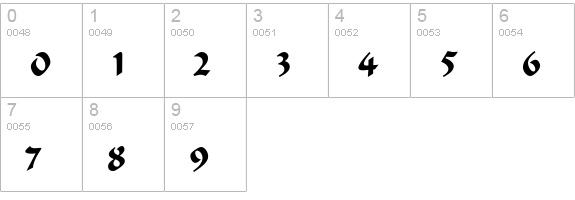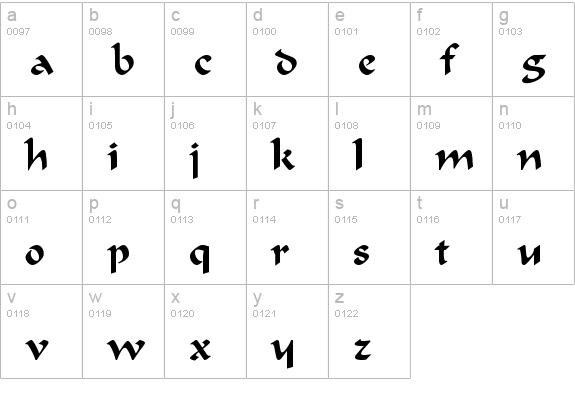
Marlin Normal Font Details
Marlin Normal is the standard, neutral variant in the Marlin typeface family \xE2\x80\x94 well suited to general body text, paragraphs, and standard typographic work.
Marlin Normal is a versatile and elegant font that effortlessly combines classic beauty with modern simplicity. Its clean and balanced letterforms make it perfect for a wide range of design projects, from branding and advertising to editorial and web design. This font features a timeless appeal that is both sophisticated and approachable. Its smooth curves and subtle details create a sense of refinement and professionalism. Marlin Normal is designed to be highly legible, ensuring that your message is clear and easy to read in any context. One of the best things about Marlin Normal is that it is available for free. You can freely download this font at FontsMarket.com, a reputable source for high-quality fonts. This means that you can use Marlin Normal in your projects without any restrictions or limitations, making it an excellent choice for both personal and commercial use. Whether you are working on a logo, a website, or a print project, Marlin Normal is sure to elevate your designs to a whole new level. Its timeless elegance and versatility make it a valuable addition to any designer's toolkit. So go ahead and download Marlin Normal today, and unleash your creativity with this stunning font.